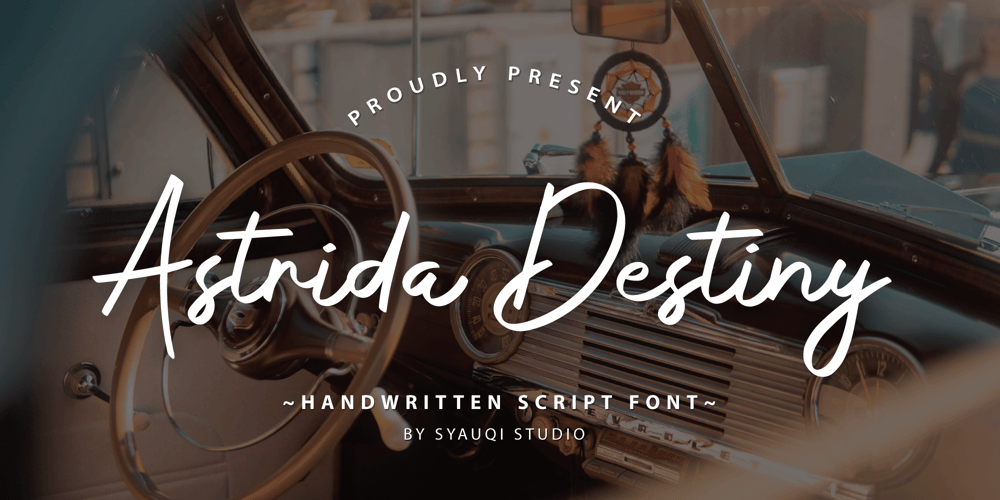
Astrida Destiny Font Family was designed by Muhammad Asroful Umam and published by Syauqi Studio. Astrida Destiny contains 1 styles and family package options. Introducing our new script font “Astrida Destiny”, where timeless elegance meets contemporary sophistication in the realm of script calligraphy fonts. Designed with meticulous attention to detail, Astrida Destiny seamlessly blends fluid, organic strokes with a touch of modernity, creating a typeface that exudes both grace and versatility.”Astrida Destiny” is crafted to elevate any design project, whether it be wedding invitations, branding materials, elegant signage, or editorial layouts. Its graceful curves and impeccable letterforms lend a sense of refined beauty and sophistication, making it perfect for conveying a sense of luxury and exclusivity.Ideal for designers, creatives, and businesses seeking to evoke a sense of charm and sophistication, “Astrida Destiny” promises to transform ordinary text into a visual masterpiece, capturing the essence of a serene and captivating paradise in every stroke.Features:- Uppercase & Lowercase- Number & Punctuation- Alternates & Swashes- Multilingual SupportTo fully access the font’s features, we recommend using programs that support OpenType features. This will allow you to access glyphs directly on the same panel without copy/pasting each glyph. Additionally, the OpenType panel allows you to turn on standard ligatures, which can automatically change letters for available ligatures.Thank you, Best regardsSyauqi Studio